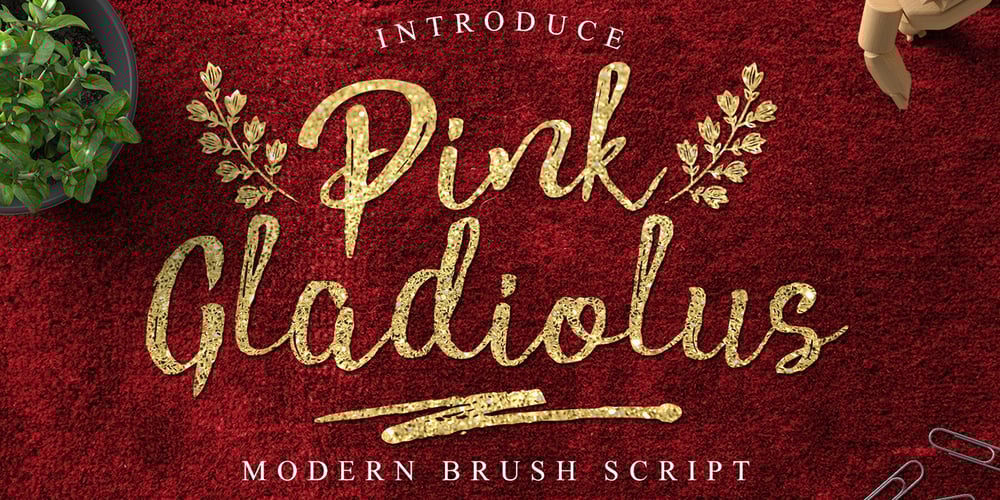
Pink Gladiolus
Pink Gladiolus font
Pink Gladiolus Font Family was designed by Suandana ipandemade and published by madeDeduk. Pink Gladiolus contains 4 styles and family package options. Pink Gladiolus is a modern brush script! It comes with two variations and bonus ornaments. This font perfect for all your designs project, events and more.Feature Uppercase Lowercase Numbers & Symbol International Glyphs Alternative Uppercase Alternative Lowercase Ligatures If you need anything else just shoot me on email at: dedukvic@gmail.comHope you enjoy it.